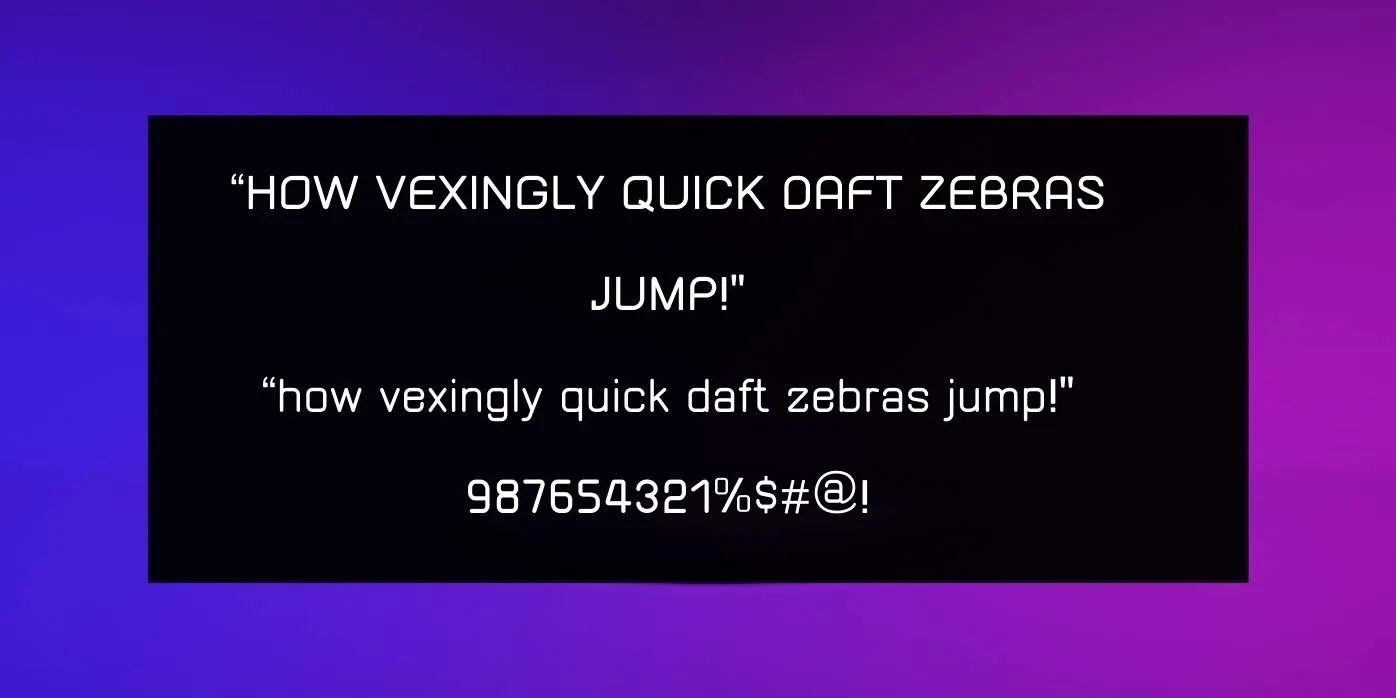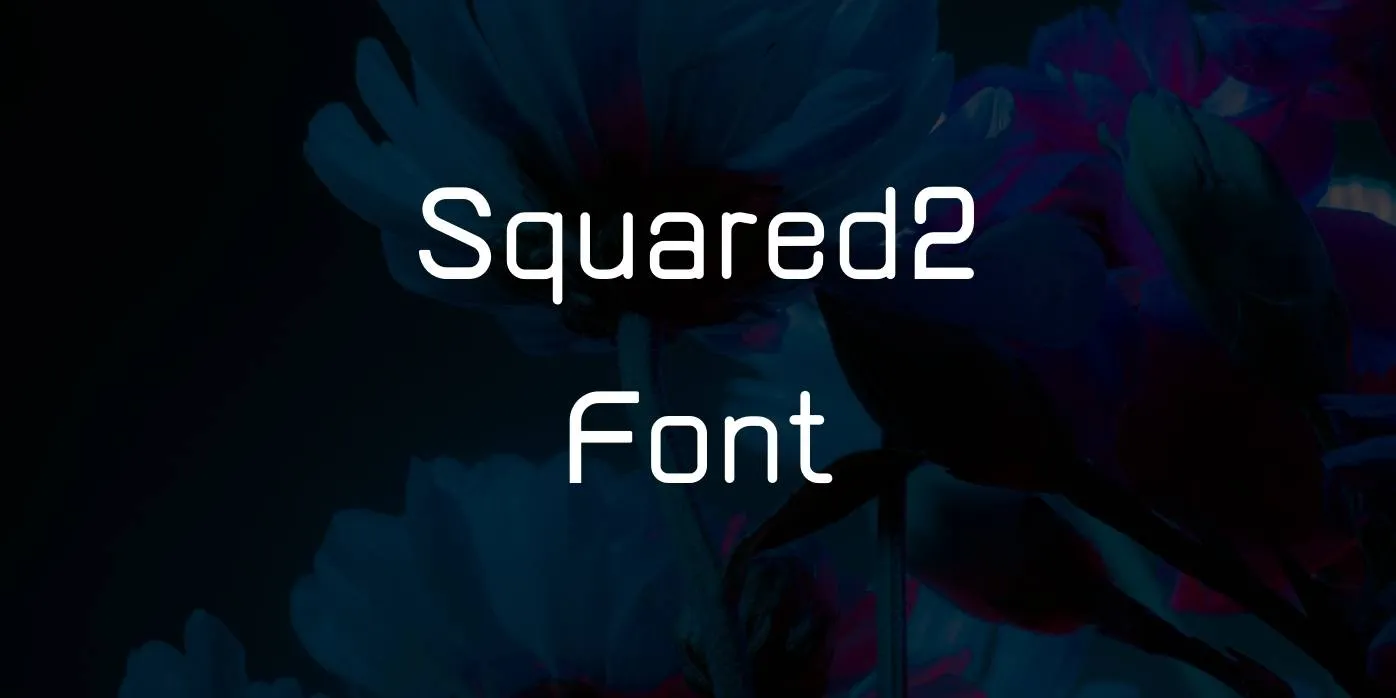
Squared2 Font
The Squared2 Font was created by Paul Renner in 1929. It is a techno typeface that has been used extensively throughout history. The font is known for its clean lines and simple shapes. Many designers consider it to be a versatile and timeless font.
The Font has been used in many different settings and contexts. It has been used in both digital and print design. It is also popular for branding and logo design. The Font is a versatile font that can be used in many different ways.